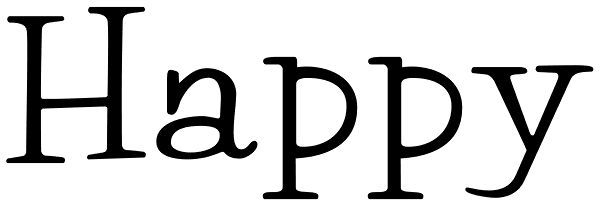
Happy
Happy is what happy does, as they say. Well, this font is very happy, and does a lot to prove it. Its letters jump for joy, bounce with excitement, roll with pleasure, greet you with a party mood, and leave you with a smile. Happy is the digital...